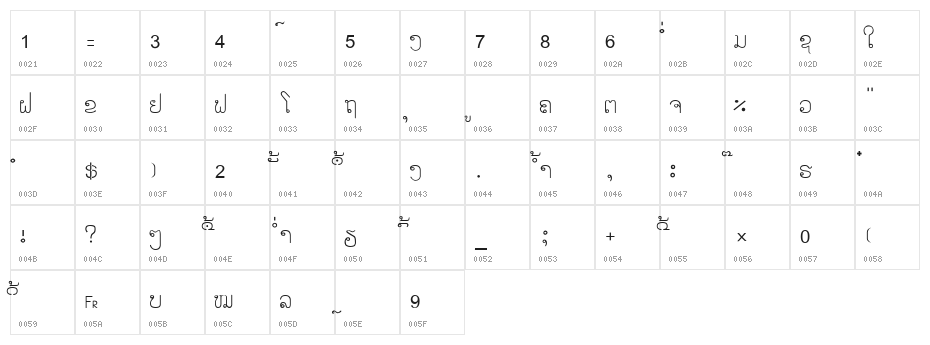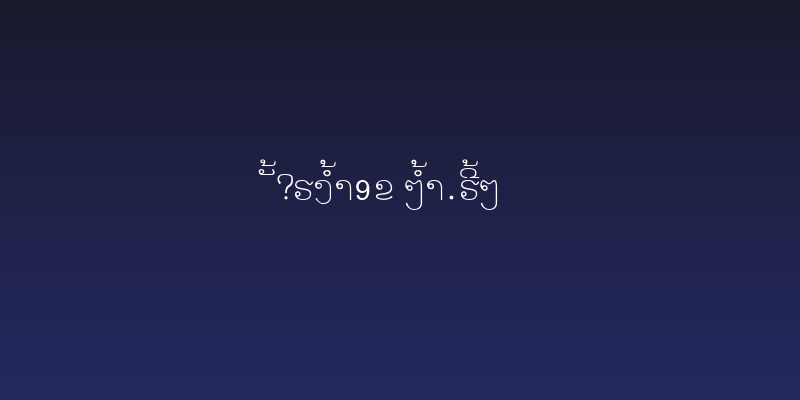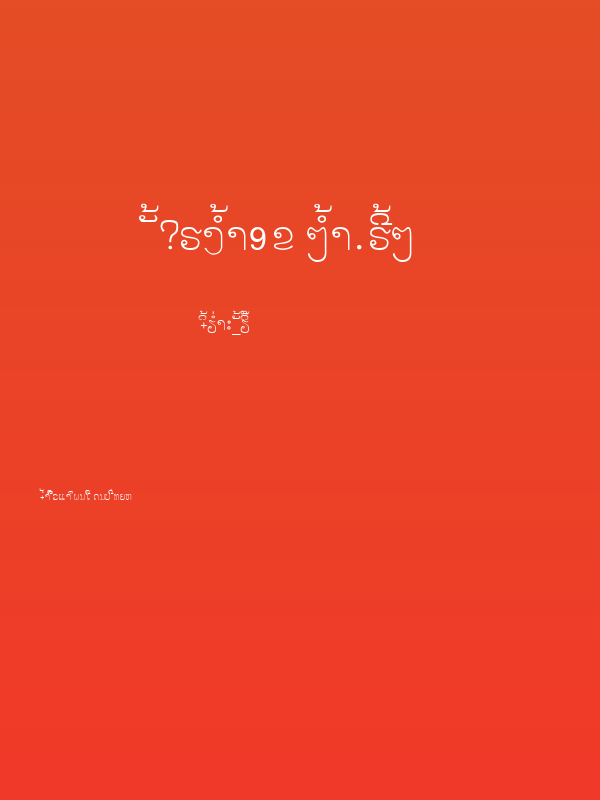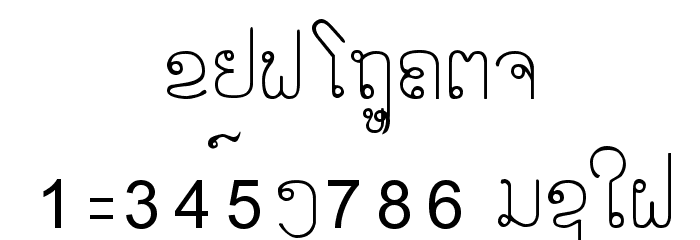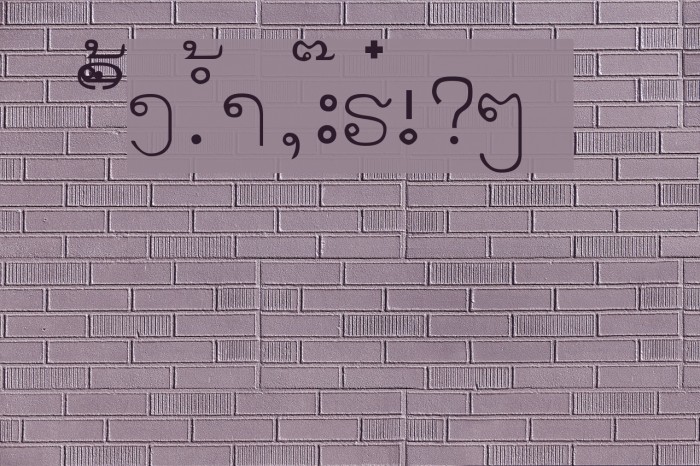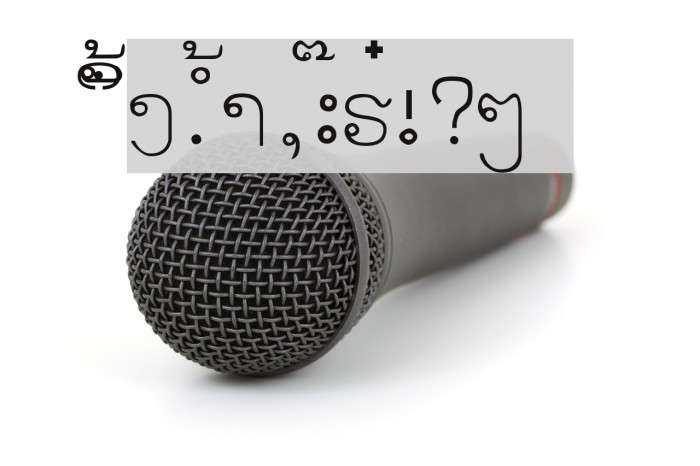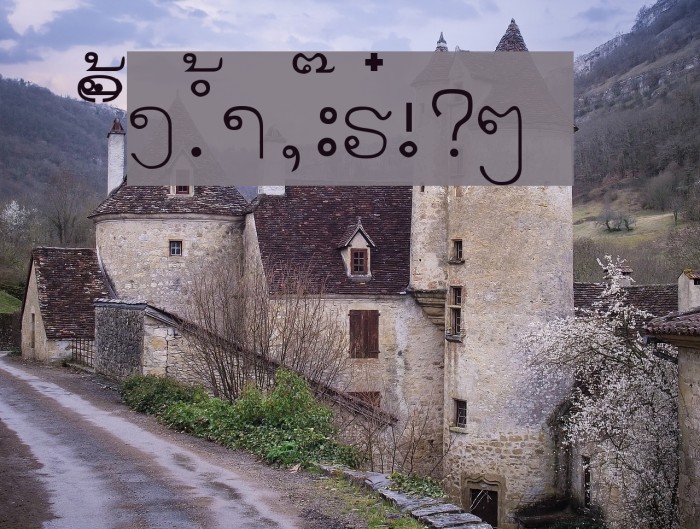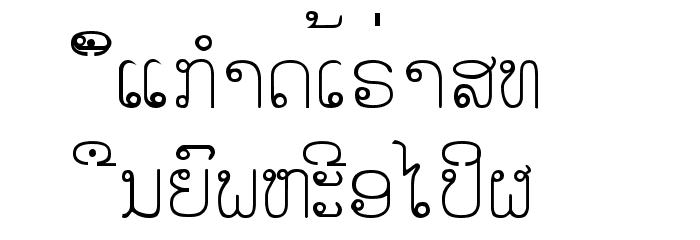
alice_0 Medium Font
alice_0 Medium Description
This font features a unique and intricate design, characterized by its elegant curves and loops. The characters are crafted with a delicate balance, offering a harmonious blend of traditional and modern elements. The strokes are smooth and consistent, providing a clean and polished appearance. This font is versatile, suitable for both formal and creative projects. Its distinct style makes it stand out, while maintaining readability and clarity. The overall aesthetic is sophisticated, making it ideal for a variety of applications.
| Overall Style | Sophisticated and elegant |
| Use Case | Logos, decorative text, cultural publications |
| Proposed Projects | Ideal for branding, invitations, decorative projects, and cultural publications. |